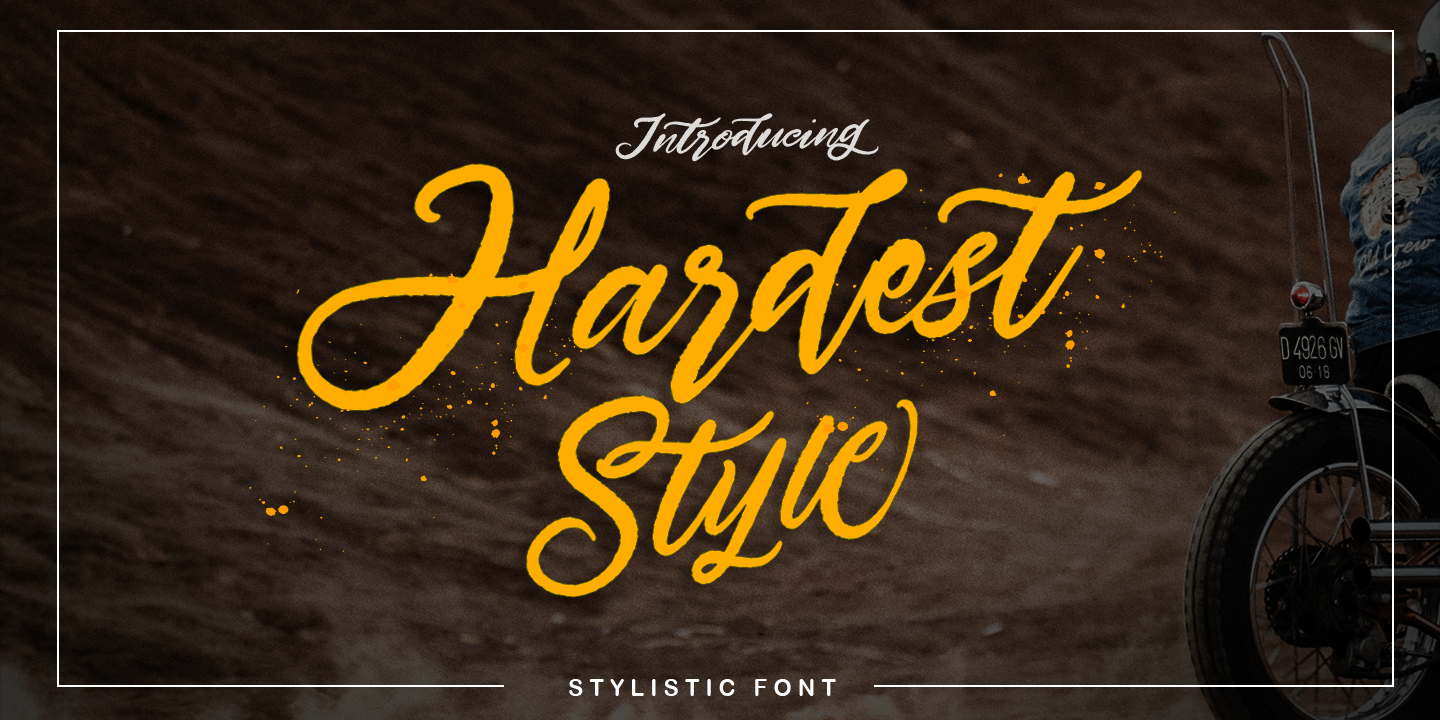
Hardest Style Font Free Download is a bold and edgy display typeface that brings a rugged, streetwise energy to any design project. Its sharp angles, distressed texture, and strong presence make it an excellent choice for posters, album covers, apparel design, branding, and promotional materials that need a tough, urban, and rebellious vibe.
The font’s gritty appearance ensures excellent visibility and impact, perfect for designs that demand attention and attitude. Hardest Style is ideal for projects across both print and digital media where raw energy and bold character are key.
Hardest Style is a powerful addition to any designer’s collection, offering a rough, energetic look perfect for standout and high-impact creative projects.